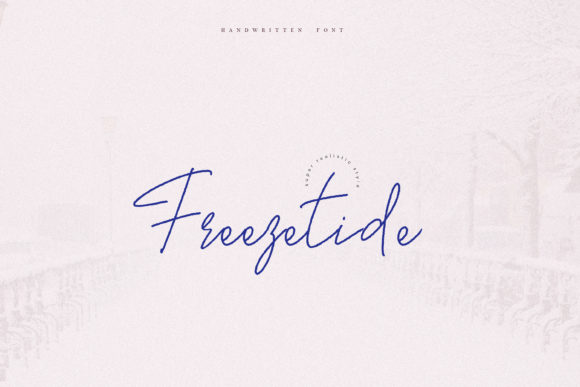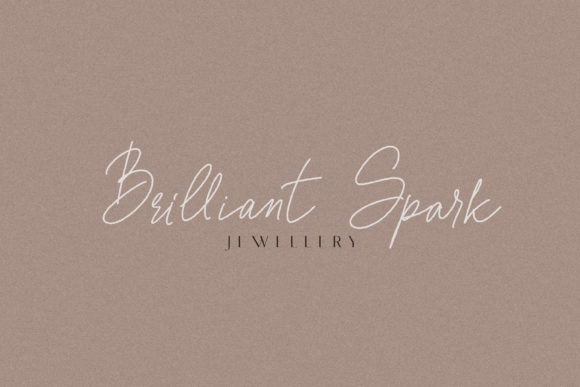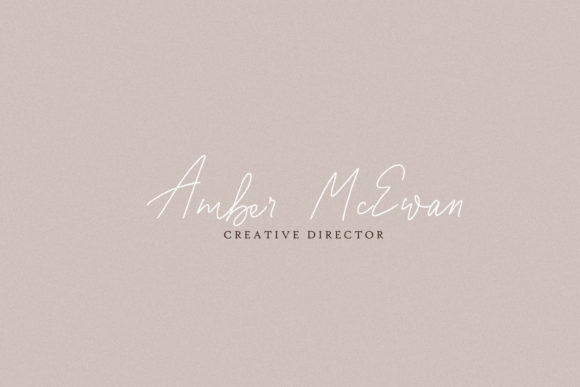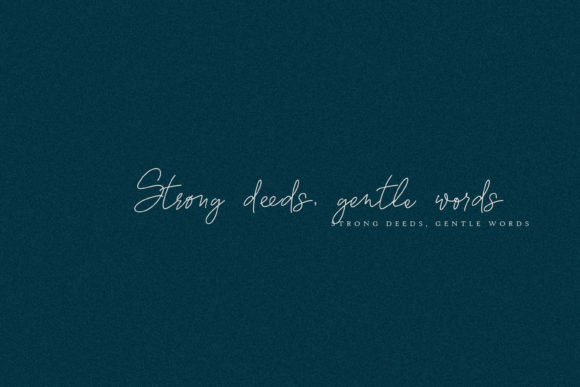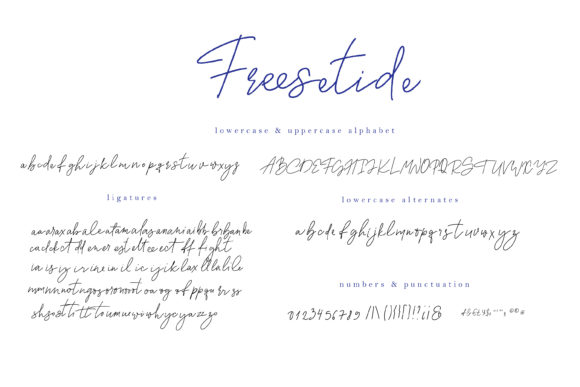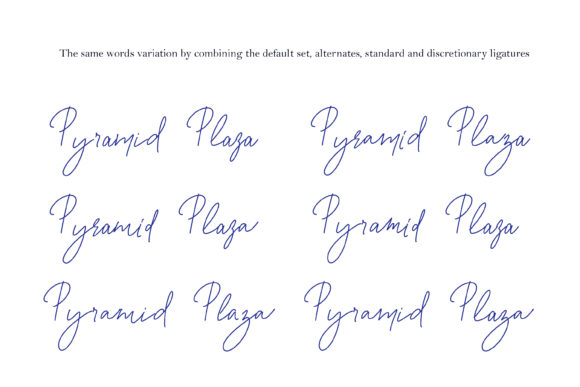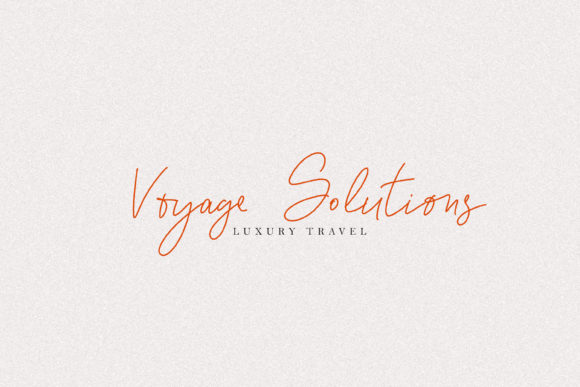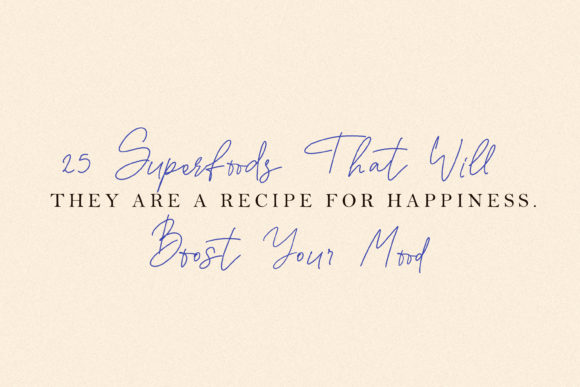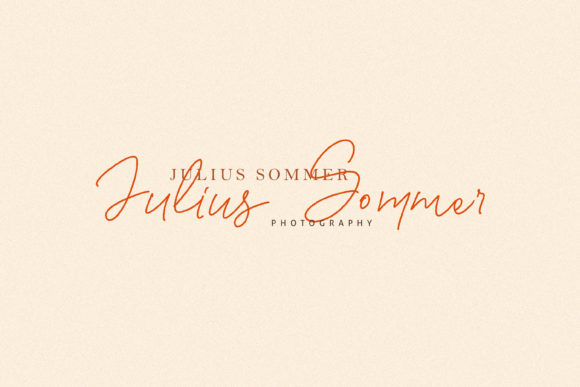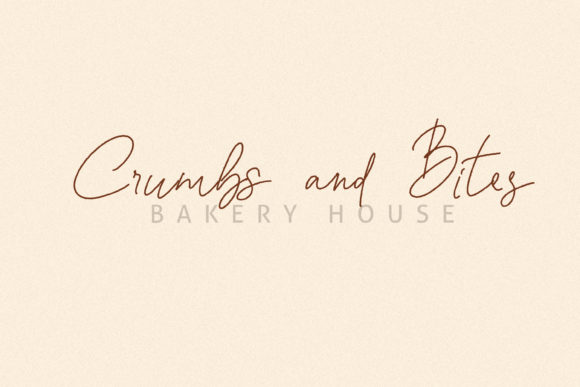
HomeScript FontsFreezetide Font Script Fonts Freezetide Font FacebookXPinterestWhatsApp Freezetide Font Poster 2 Freezetide Font Poster 3 Freezetide Font Poster 4 Freezetide Font Poster 5 Freezetide Font Poster 6 Freezetide Font Poster 7 Freezetide Font Poster 8 Freezetide Font Poster 9 Freezetide Font Poster 10 Freezetide Font Poster 11 Freezetide Font Poster 12 About Freezetide Font Freezetide contains beautiful ligatures and alternatives that turn this script into a true standout! DOWNLOAD NOW People also explored Lobster Font Helo Angel Font Pink Sprinkles Font Calon Biny Font Minari Garden Duo Font Merediane Font Dustie Font Sideway Font Sometime Font 291 0 TagsFreezetide Font Previous articleHatchy FontNext articleBlodeyn Font LEAVE A REPLY Cancel reply Comment: Please enter your comment! Name:* Please enter your name here Email:* You have entered an incorrect email address! Please enter your email address here Website: Save my name, email, and website in this browser for the next time I comment. Personal Use Free Salmoni Personal Use Free Read more about this font Lixdu Personal Use Free Read more about this font Built Tilting Personal Use Free Read more about this font Motherblood Personal Use Free Read more about this font BLOG Best Fonts for T-Shirt Design – Top 2025 Picks In 2025, t-shirt design has become more than just fashion—it's a form of self-expression. Whether you're... The 10 Best Handwriting Fonts to Add Personality to Your Designs How to Install and Use Fonts on Windows, macOS, and Web Projects Free Fonts Risk: Why Free Fonts Can Be Dangerous for Designers